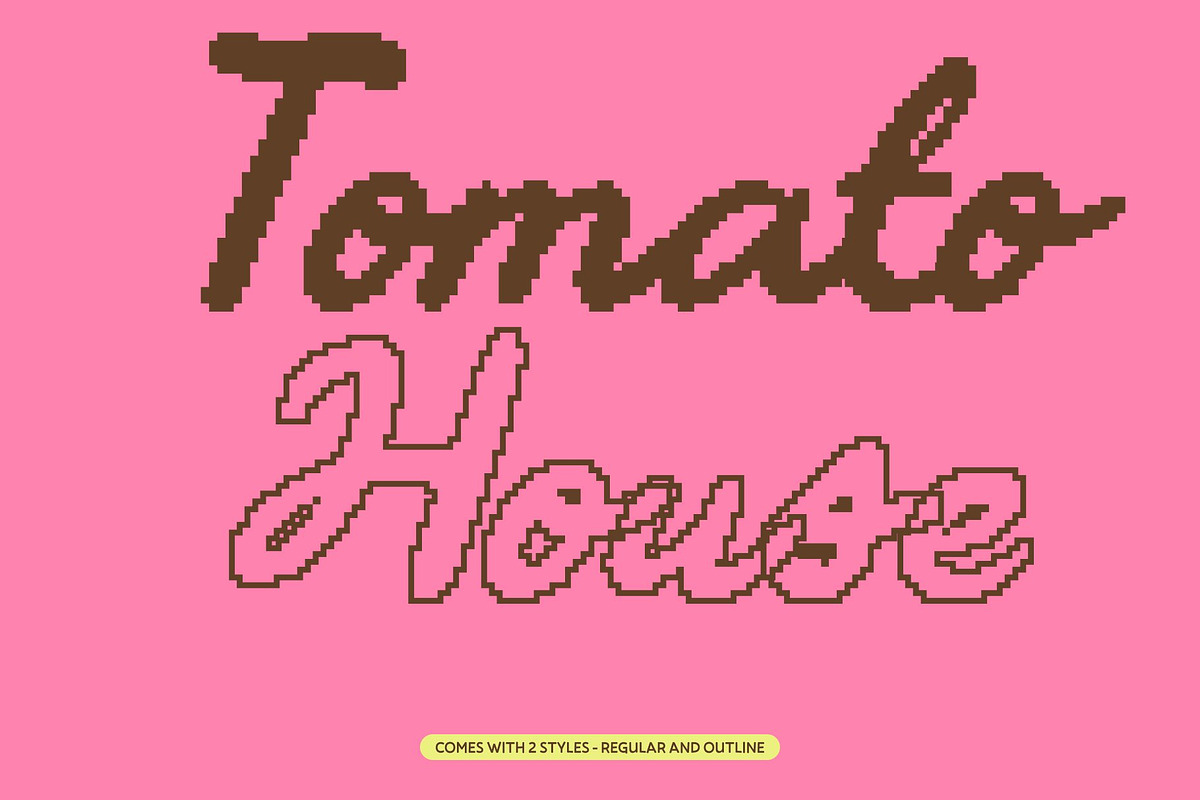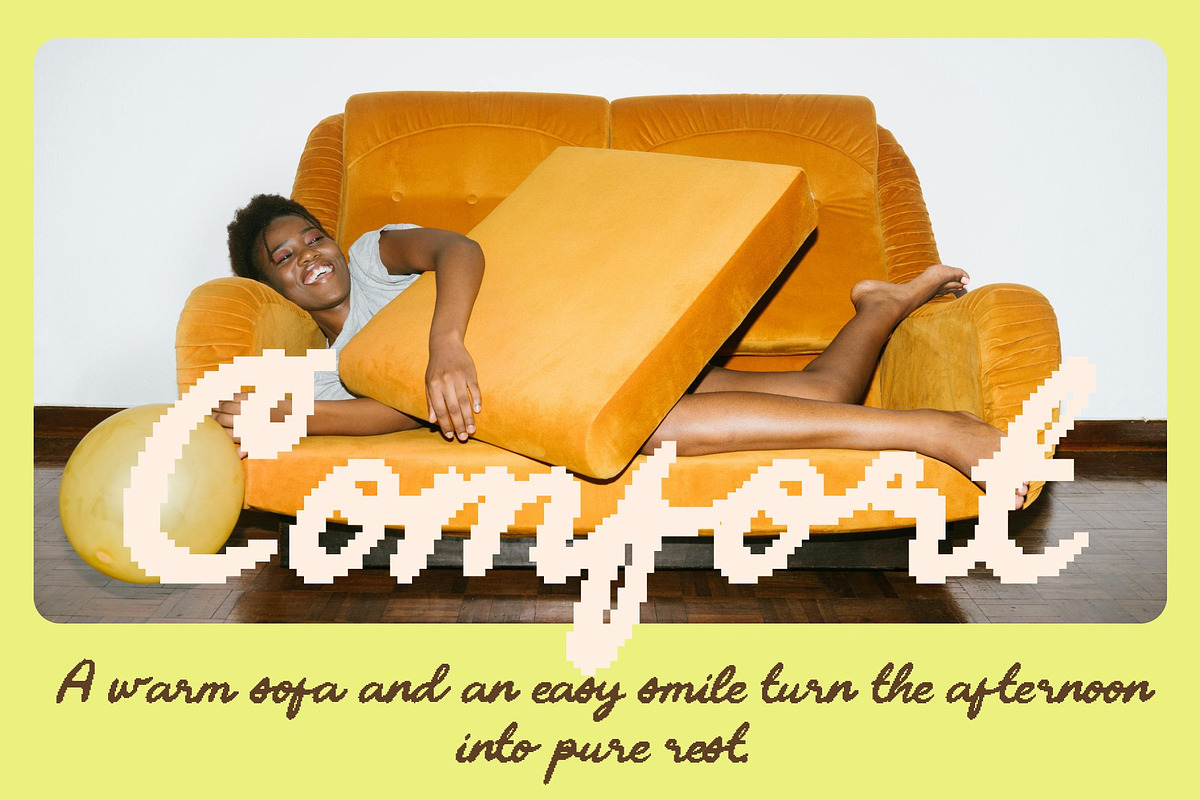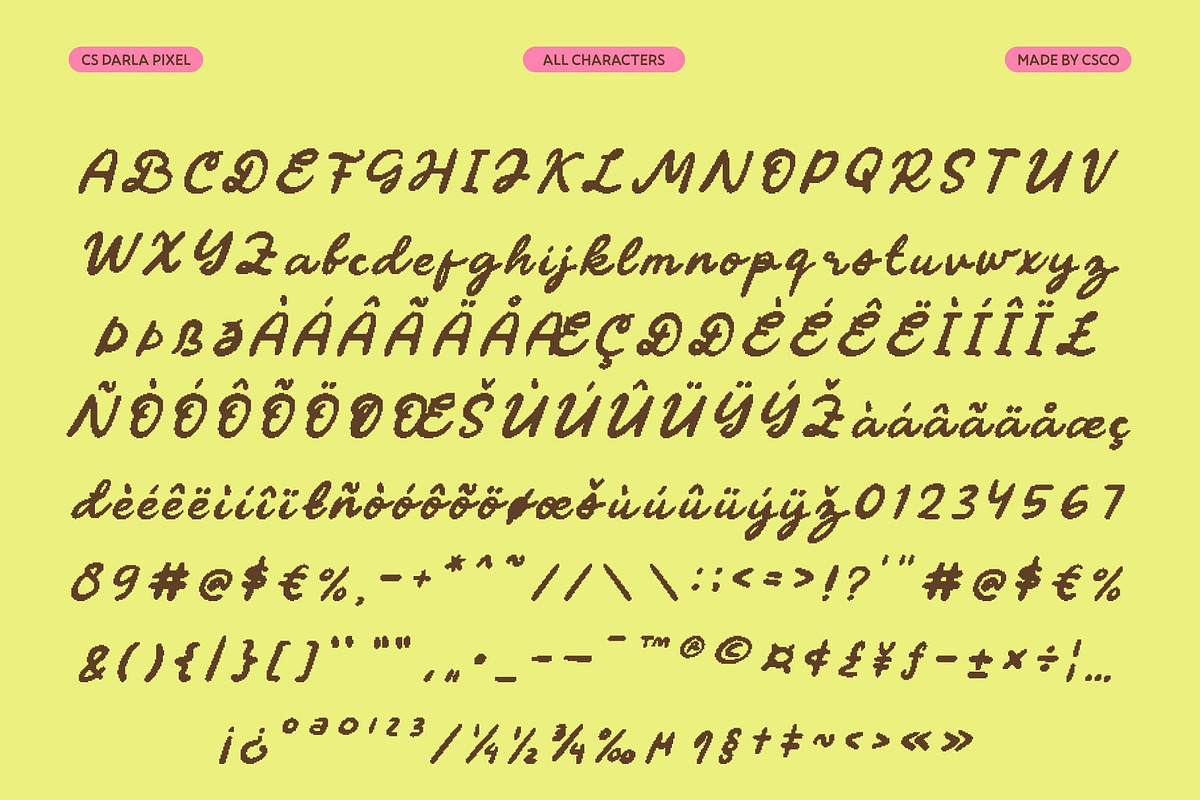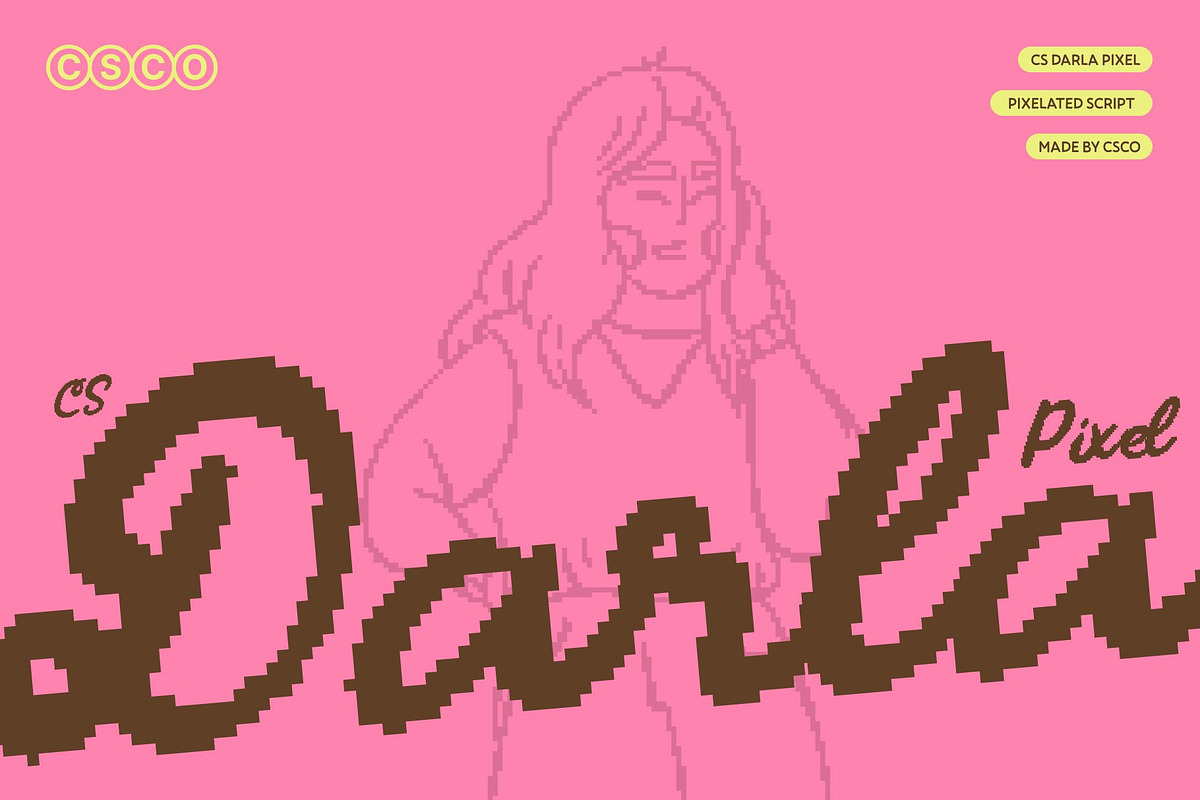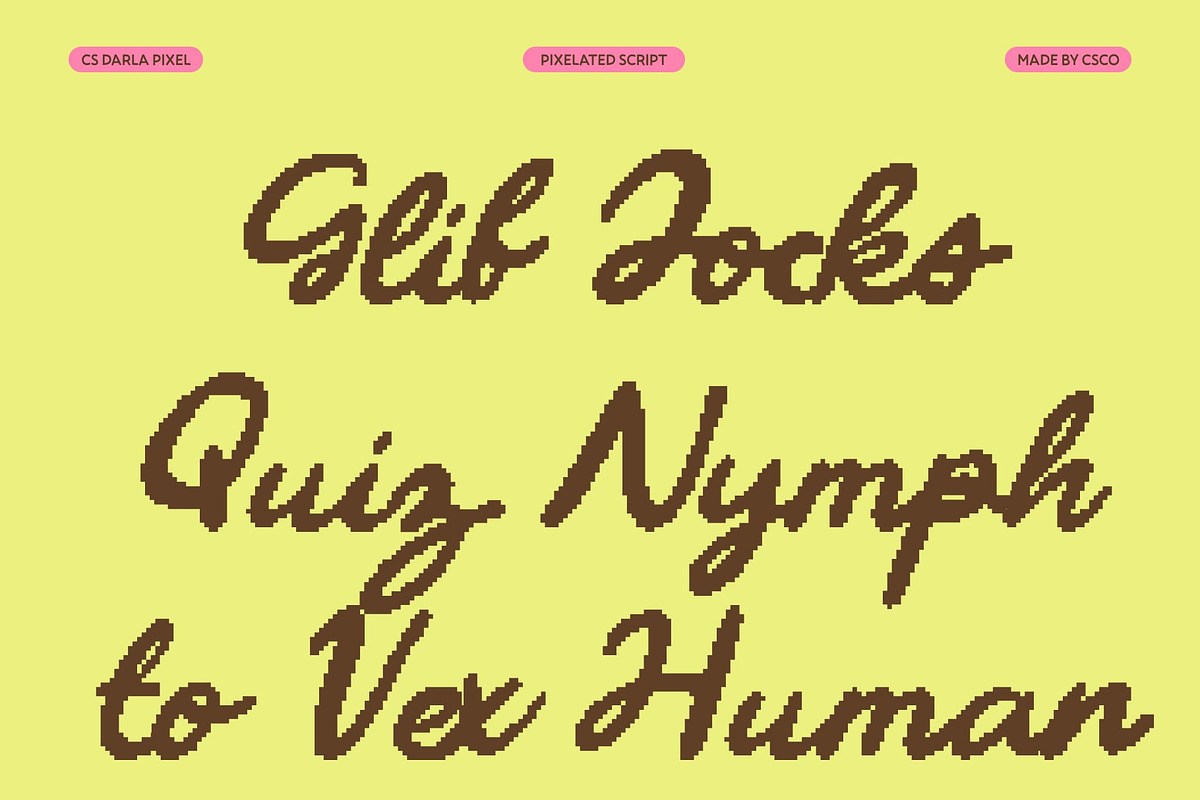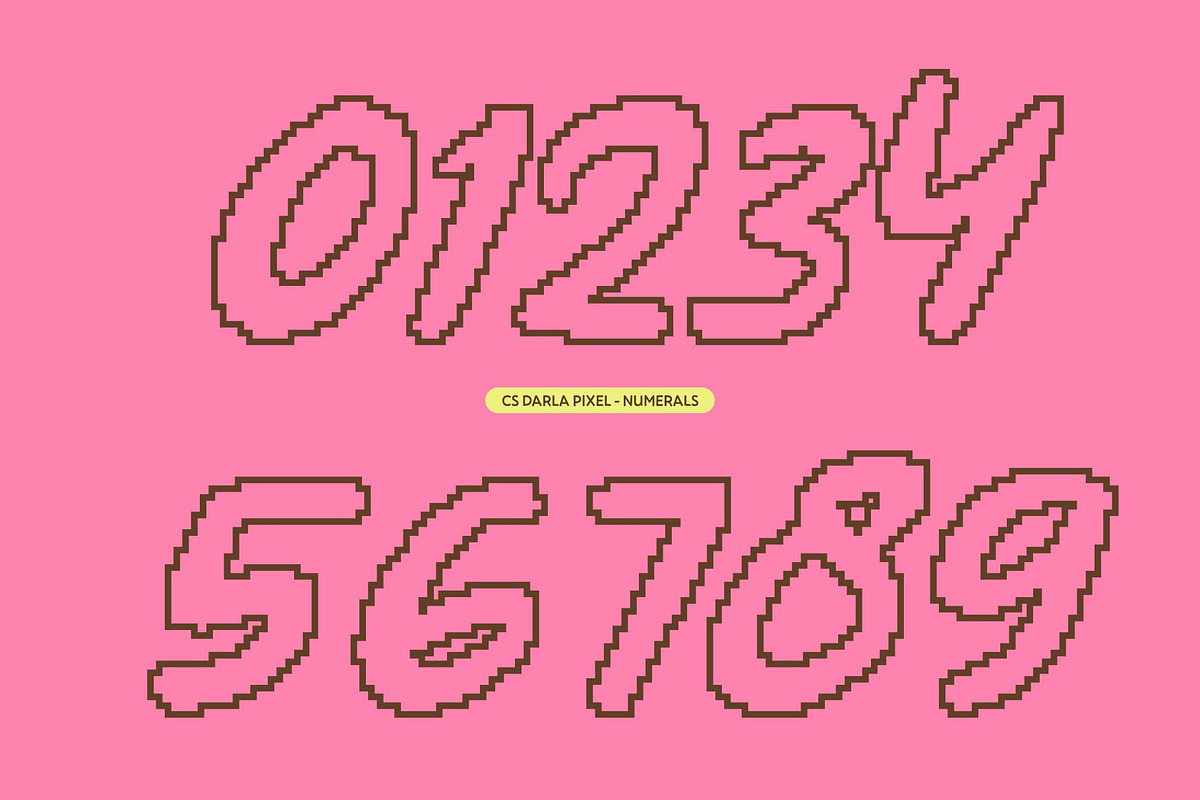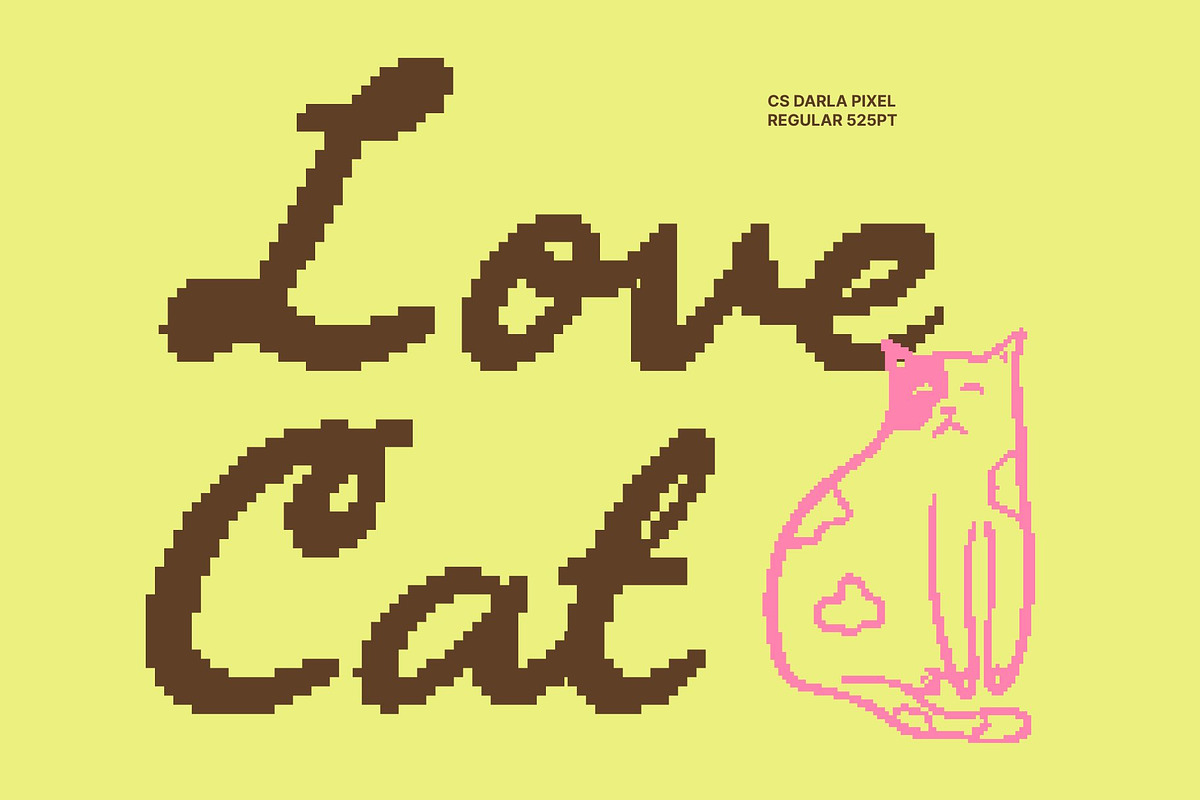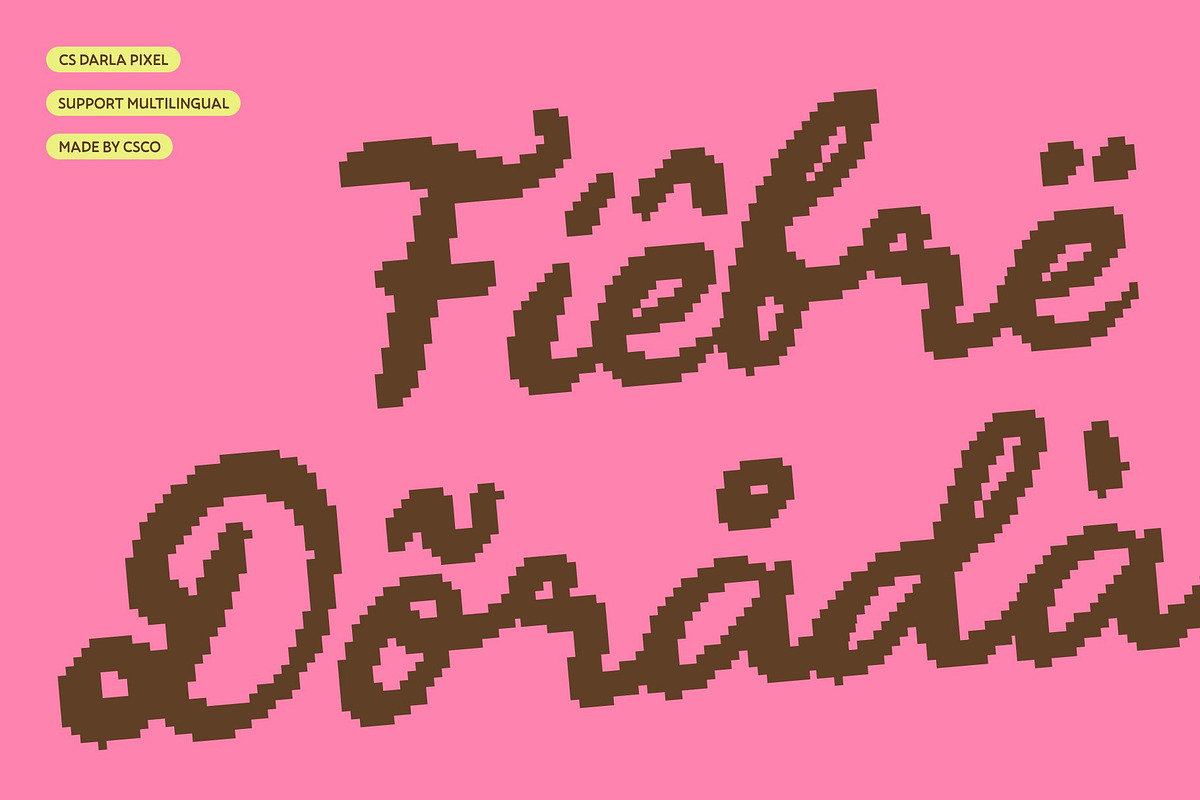
CS Darla Pixel
CS Darla Pixel – Chic Handwritten Beauty with Subtle Digital Elegance
Chic Pixel Script Font with Refined Charm This is a chic handwritten script font designed to express delicate beauty and graceful individuality, enhanced by subtle pixel precision. Its smooth strokes and stylish flow capture modern elegance while preserving the warmth of natural handwriting. Every letter feels personal, refined, and thoughtfully crafted perfect for designs that seek sophistication with a contemporary digital touch.
Delicate Pixel Strokes with Creative Flourishes The distinctive character of this font lies in its fine strokes and carefully designed flourishes, shaped within a refined pixel structure. Each curve and connection adds visual interest without overwhelming the composition, maintaining clarity and elegance. These artistic details give the font a unique personality that feels exclusive, fashionable, and expressive.
Elegant Expression for Stylish Visual Storytelling With its soft movement and balanced rhythm, this font brings beauty and intimacy to visual storytelling. The handwritten style feels chic and approachable, making it ideal for designs that aim to communicate warmth, refinement, and modern femininity.
Perfect for Branding, Invitations, and Fashion-Focused Design This font excels in branding, invitations, fashion graphics, packaging, and editorial layouts. Its elegant handwritten form refined by subtle digital detailing makes it especially suitable for beauty brands, wedding stationery, boutique logos, and lifestyle visuals that value style and sophistication.